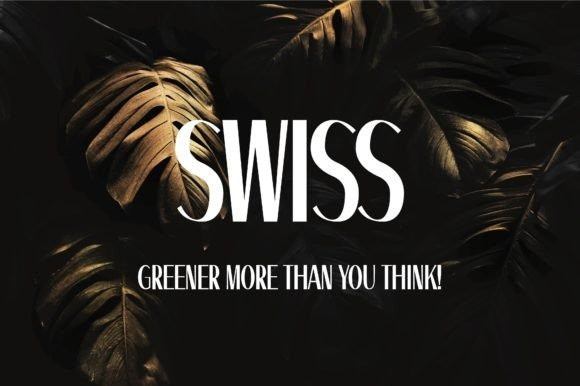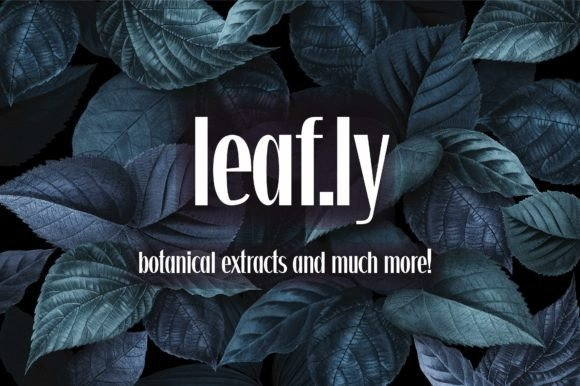
Swizzer Font
Sizzer Font is a minimalist clean sans serif font inspired by the swiss typography design. For that reason, it is a tall condensed font and it has a geometric look yet a high contrast in the glyphs skeletons, that contrast renders the font unique and powerful. Use it confidently in your favorite creation and it’s guaranteed that you can keep using it over and over again.